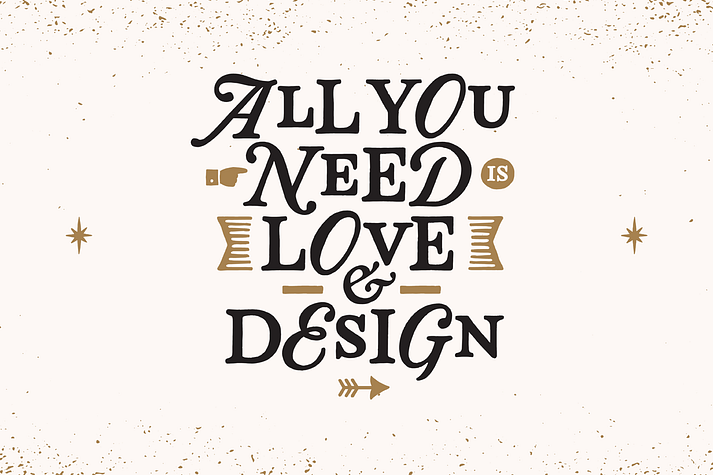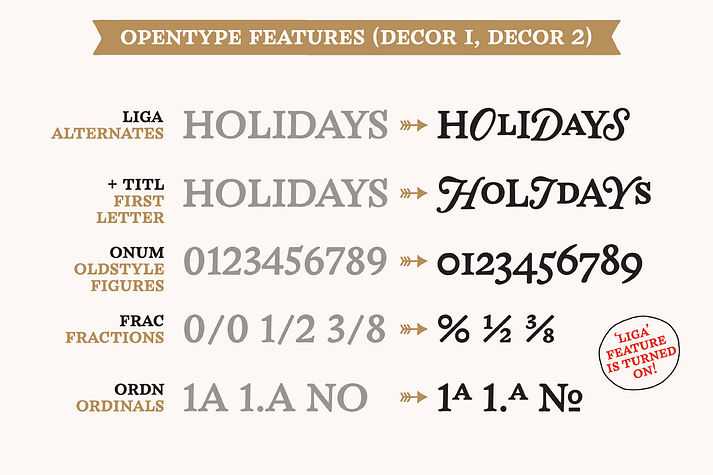
Allister Rough
Allister Rough is a display slab and serif font family. This typeface has four styles and was published by Ksenia Belobrova.
Allister Rough is a handmade font family based on Oldstyle English and Transitional fonts, modern typography and lettering. It’s a kit of joyful fonts that can be used for cards, posters, books, t-shirts, etc. Allister Rough has three font Styles and Extras. “Decor 1” is an expressive font which has three sets for each letter. “Decor 2” has two sets and “Caps” has Capital letters and Small Capitals. So you can choose what you need or combine Styles to create different typography compositions.
• Allister Rough Decor 1
• Allister Rough Decor 2
• Allister Rough Caps
• Allister Rough Extras
All contextual alternates are built into the ‘Liga’ feature and duplicated into the ‘Calt’ feature. So when you work with the fonts, please make sure that ‘Liga’ or ‘Calt’ is turned on. Font family also supports OpenType features like Titling, Oldstyle Figures, Fractions, Ordinals and includes multilingual support. Please take a look at the User Guide: https://dl.dropboxusercontent.com/u/21231737/Allister%20Rough%20User%20Guide.pdf